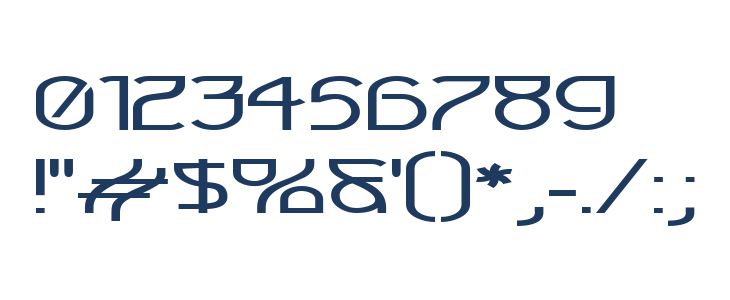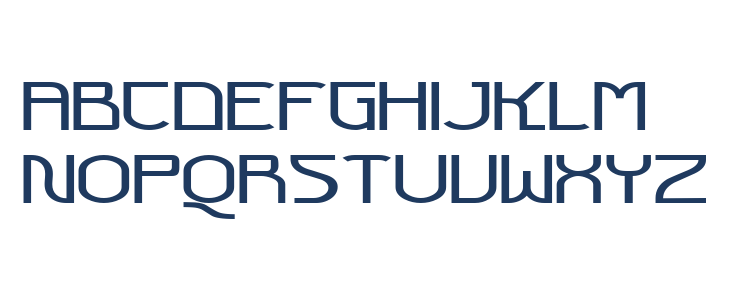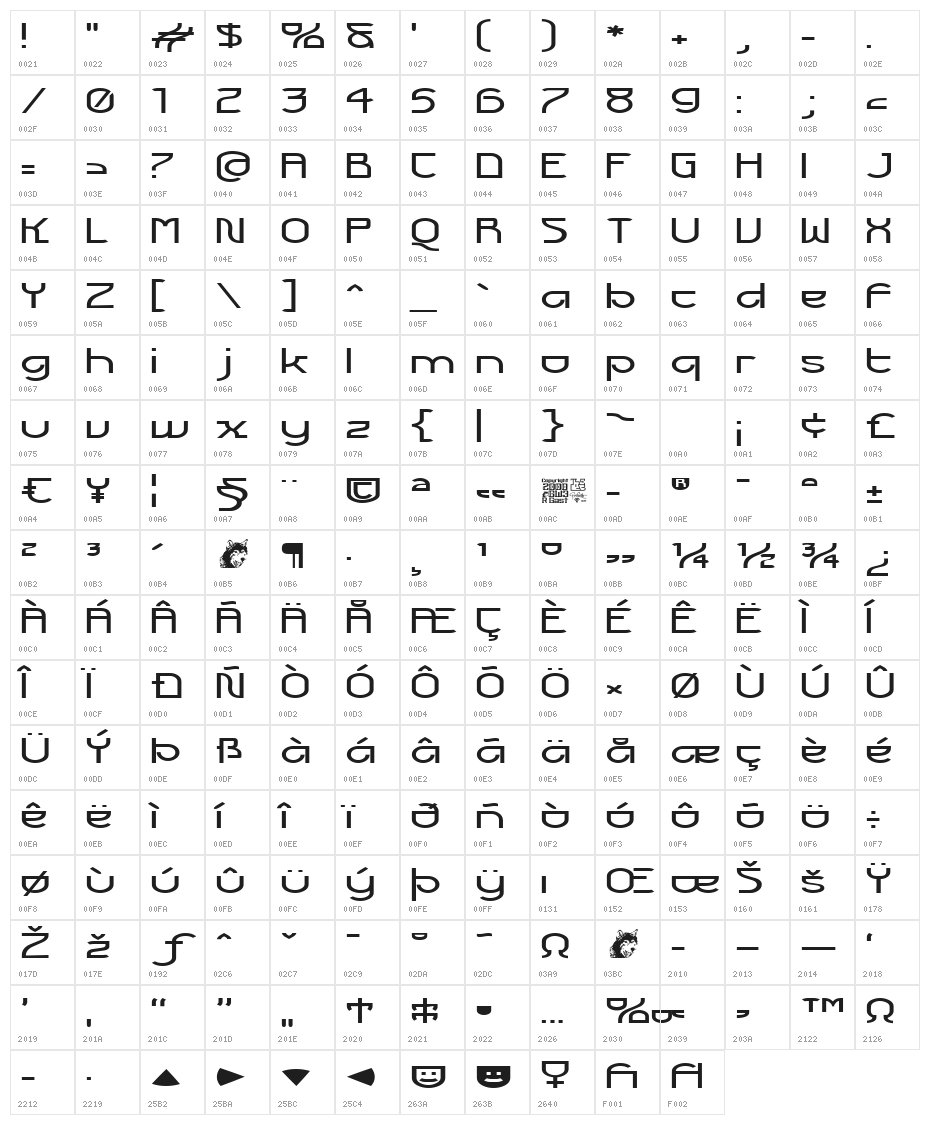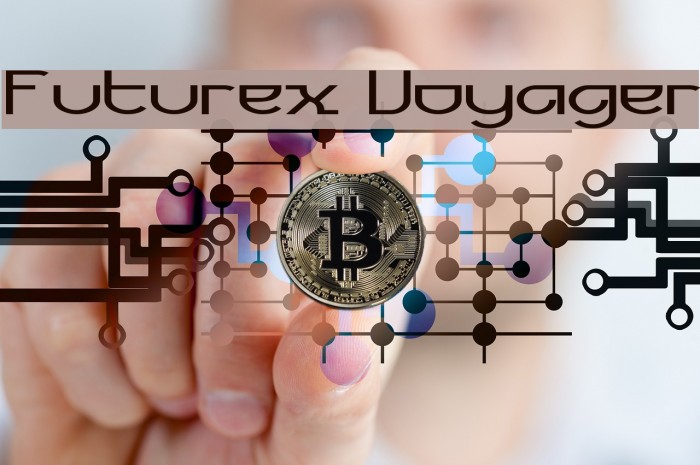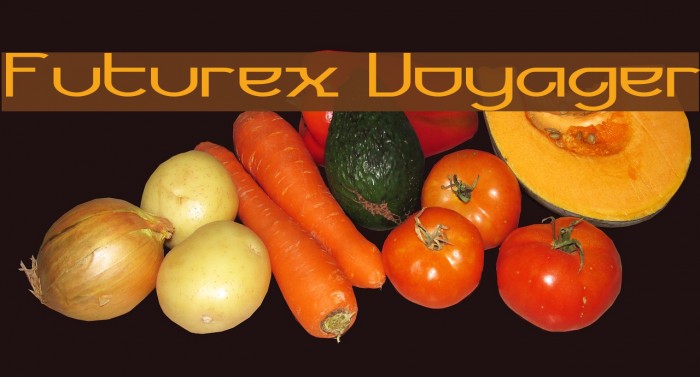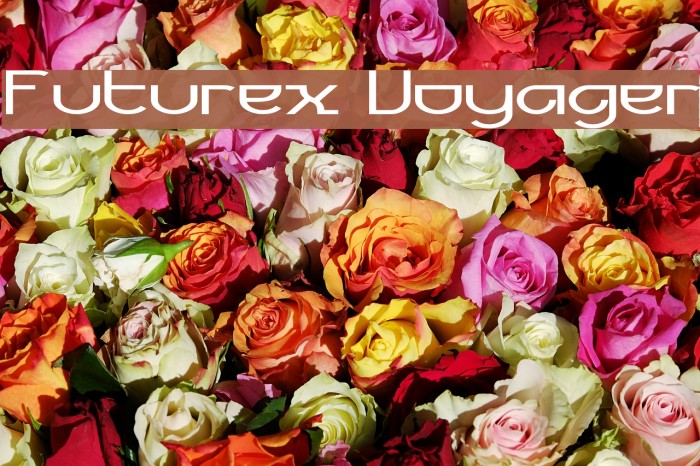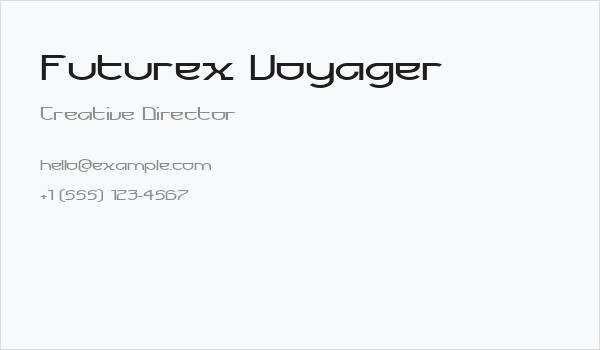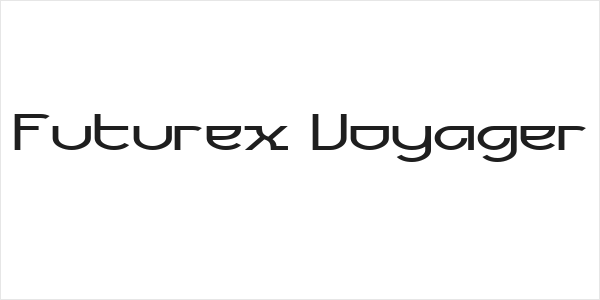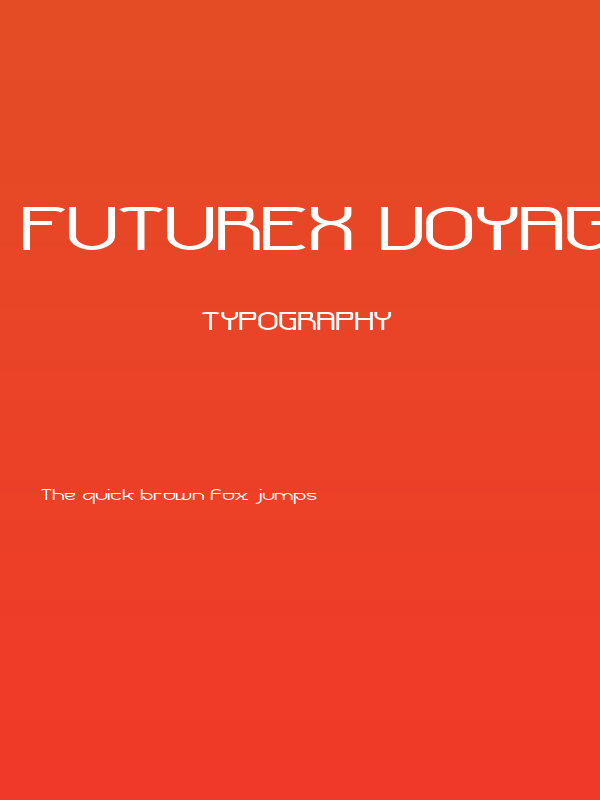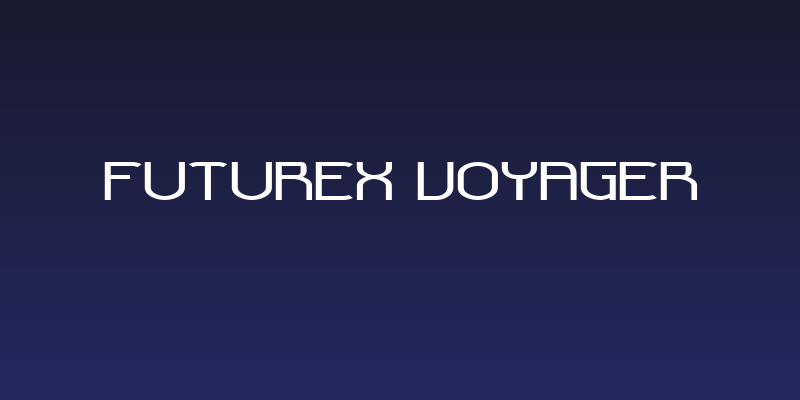
Futurex Voyager Font
Futurex Voyager Description
This font features a futuristic and geometric design, characterized by its clean lines and angular shapes. The uppercase letters exhibit a uniform height with distinct, sharp corners, while the lowercase letters maintain a similar geometric style with slightly softer edges. The numerals are consistent with the overall design, offering a modern and sleek appearance. Special characters are uniquely styled to match the font's futuristic theme, making it suitable for projects that require a modern and innovative look.
| Proposed Projects | Ideal for technology branding, sci-fi themed designs, modern posters, and innovative product packaging. |